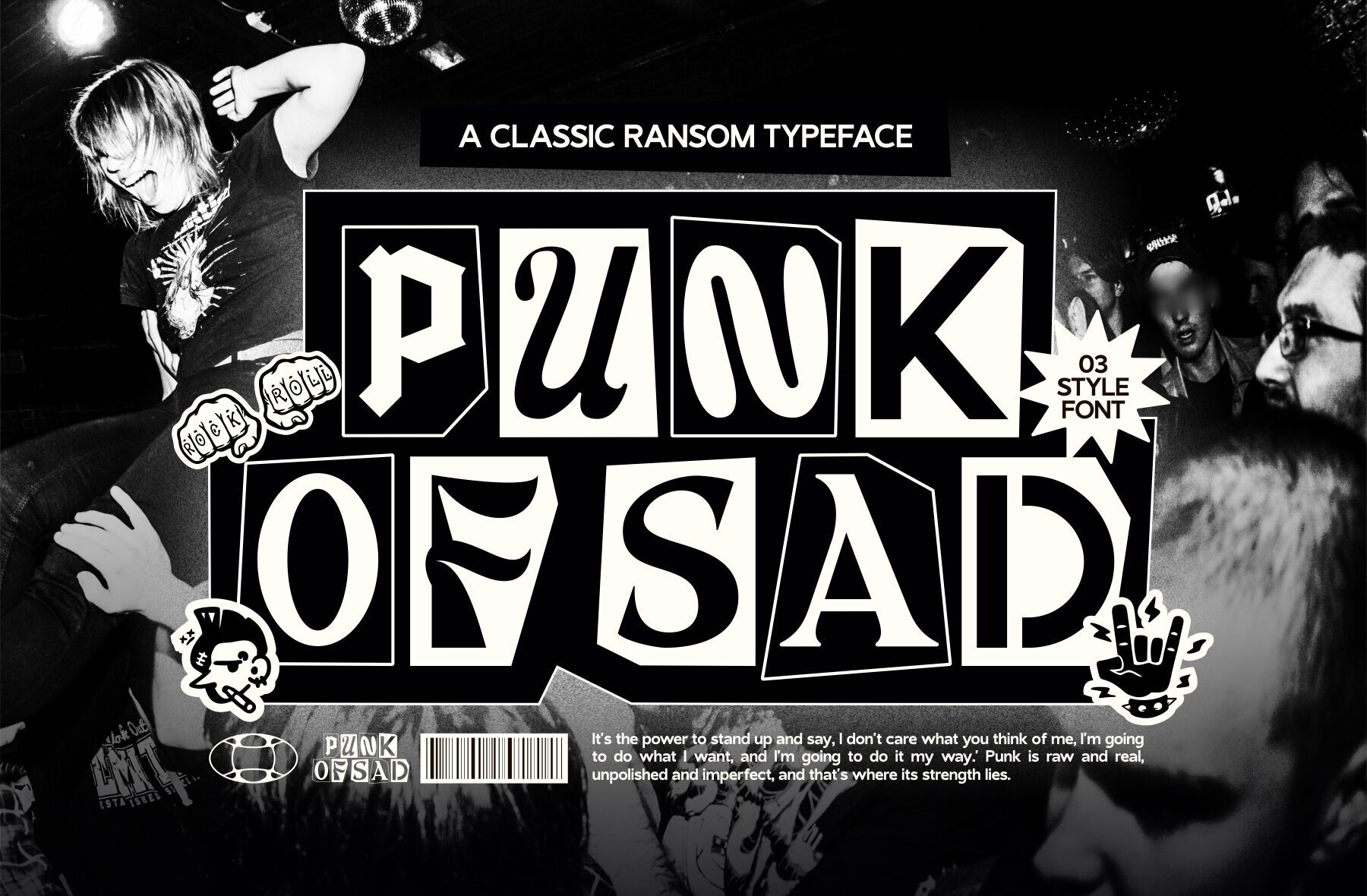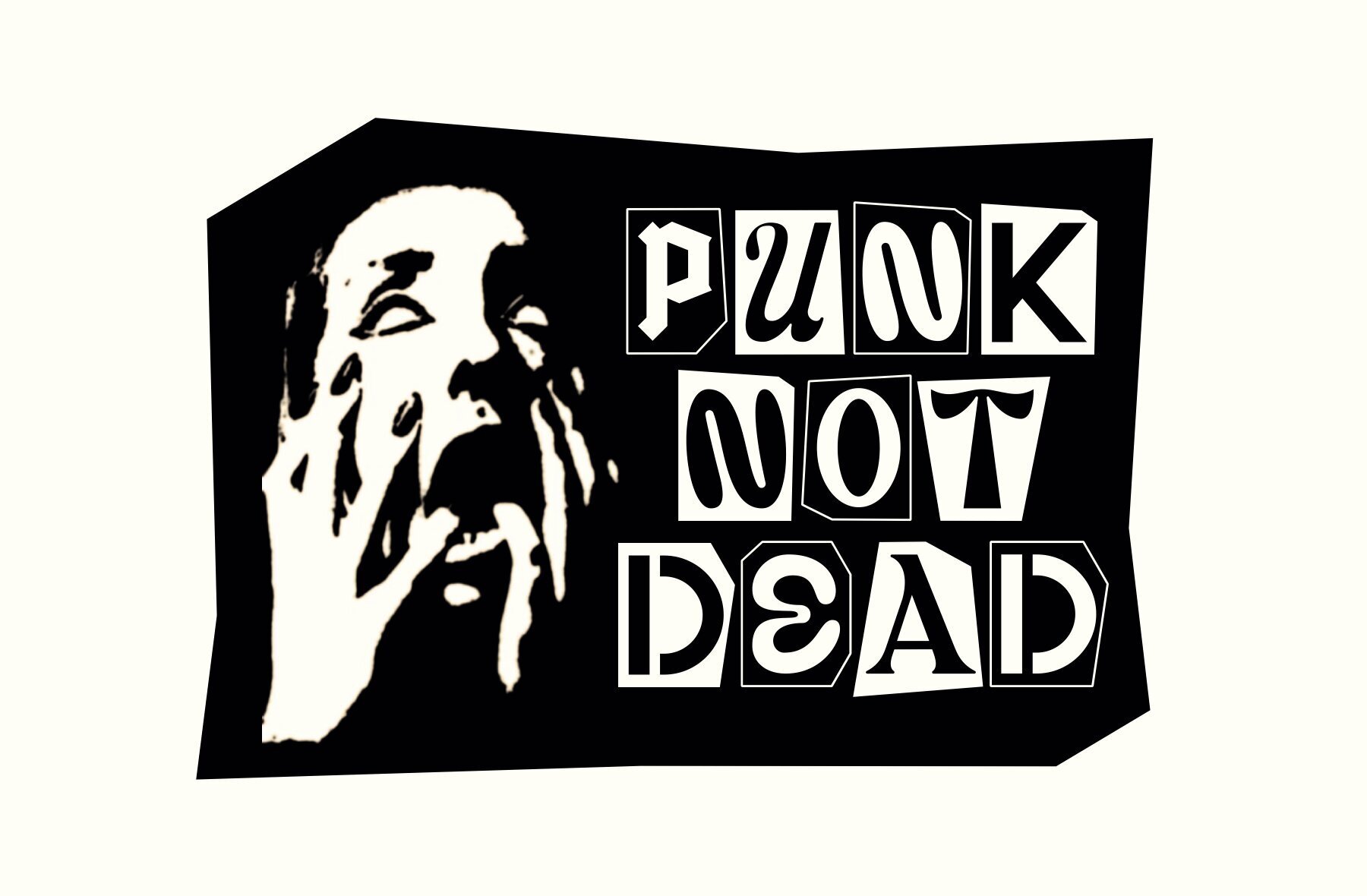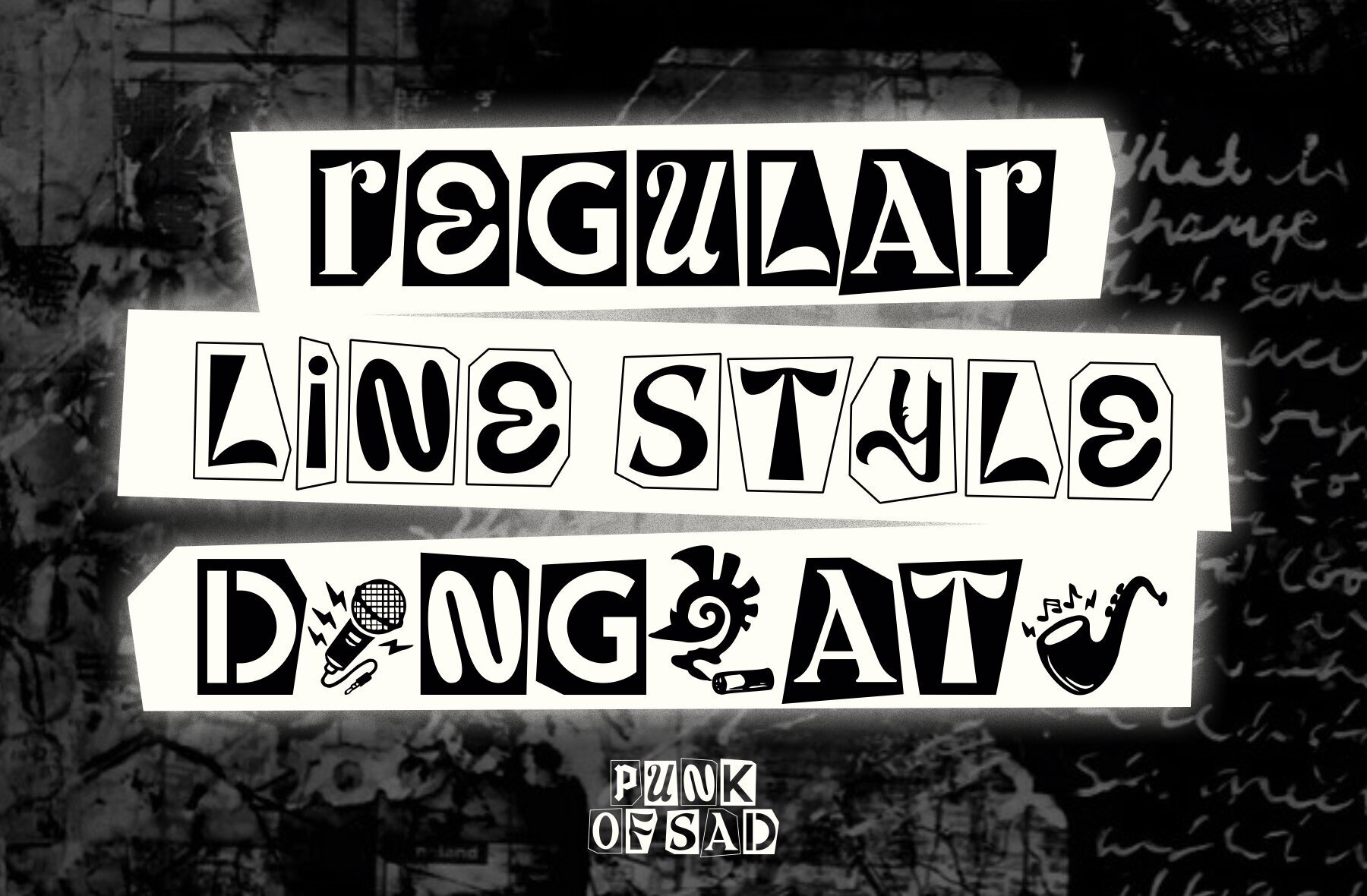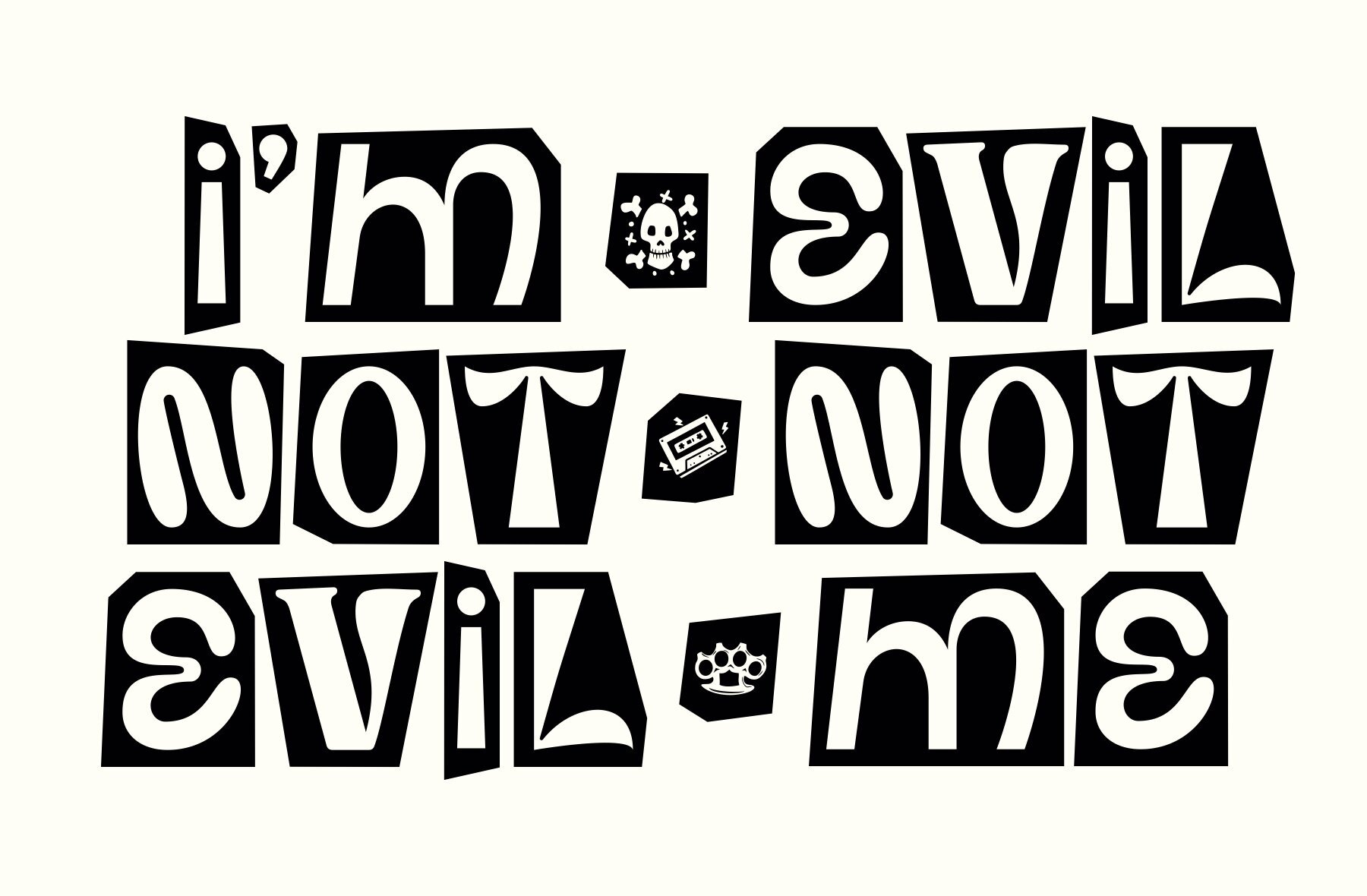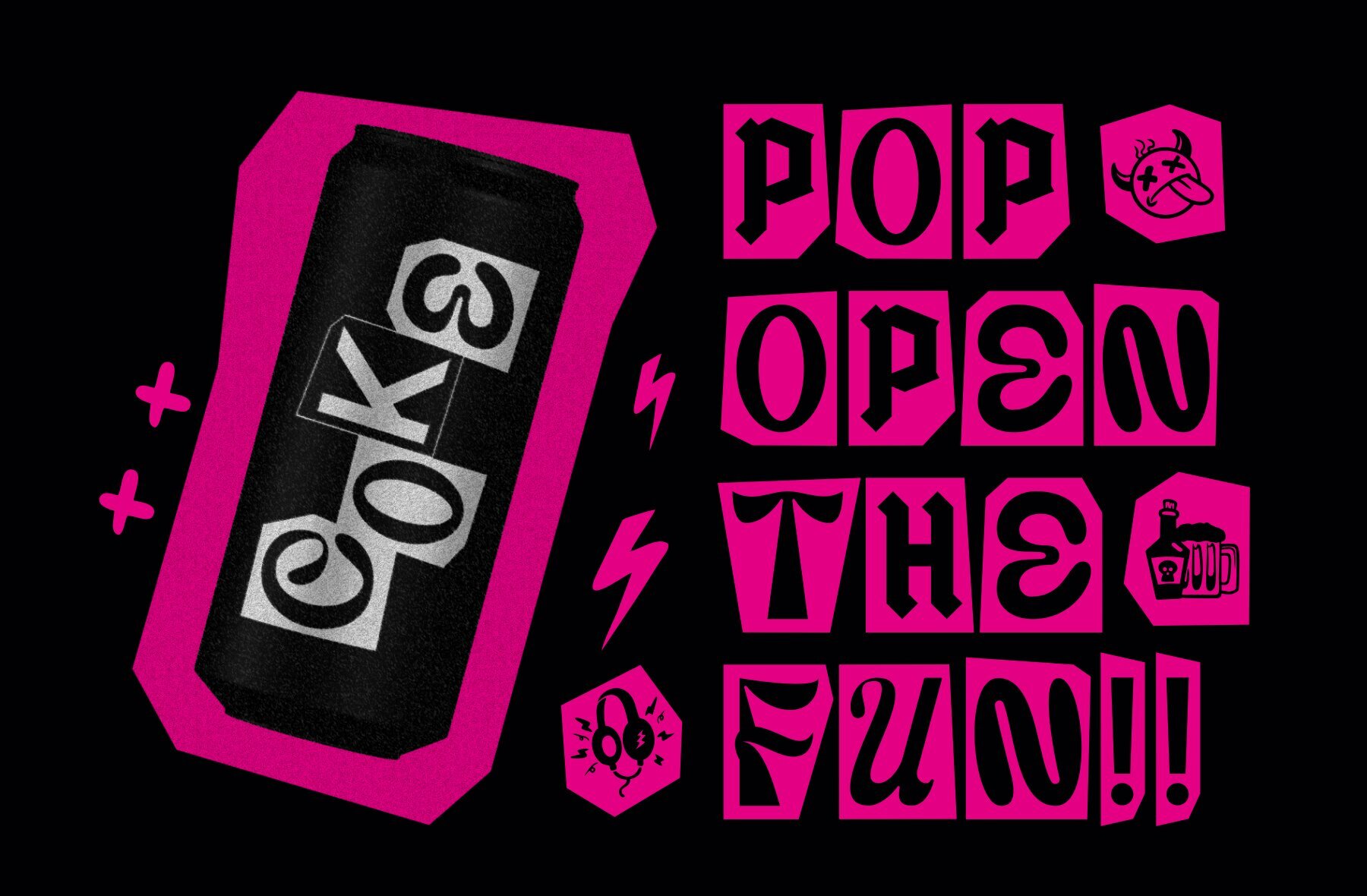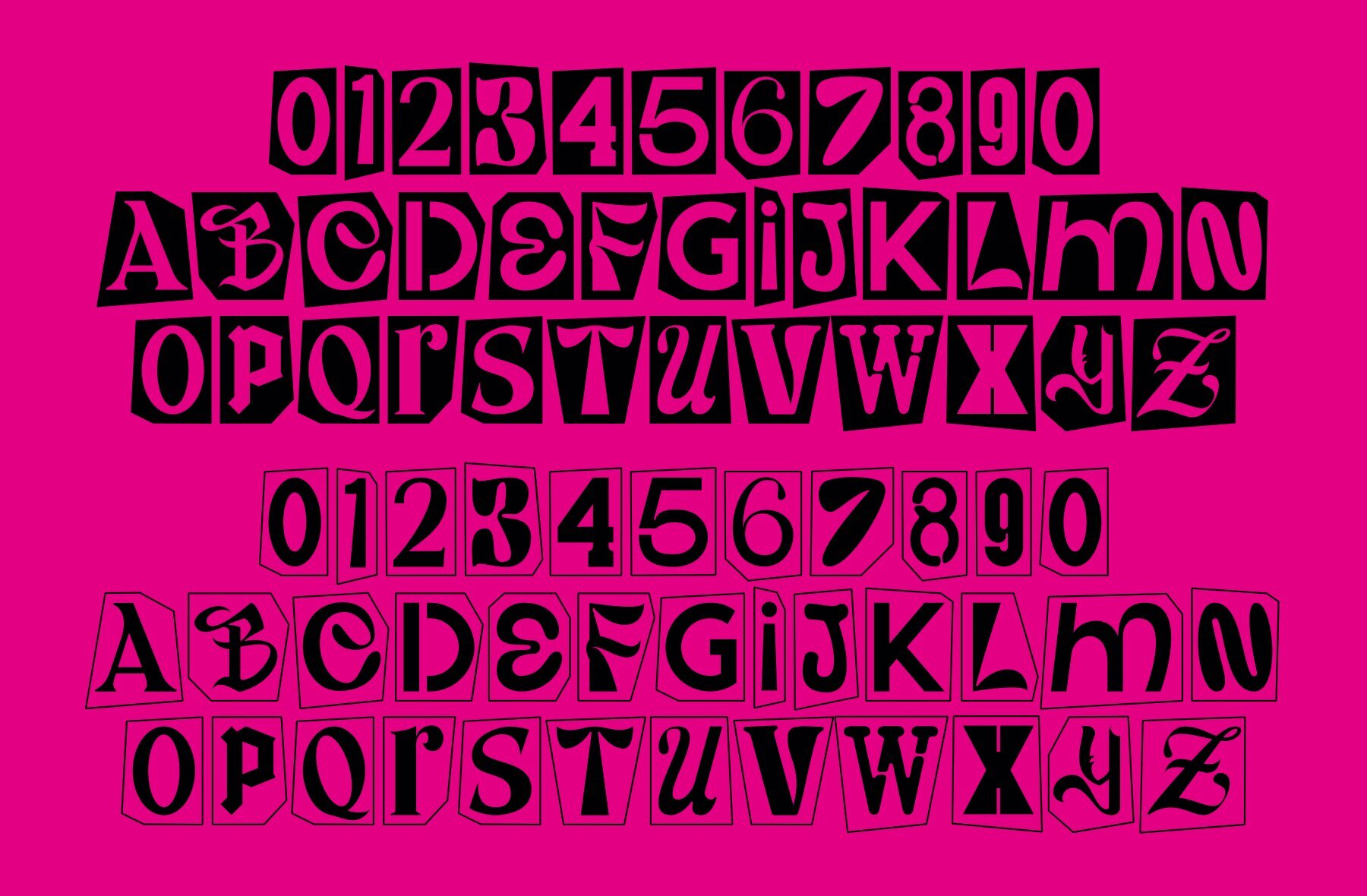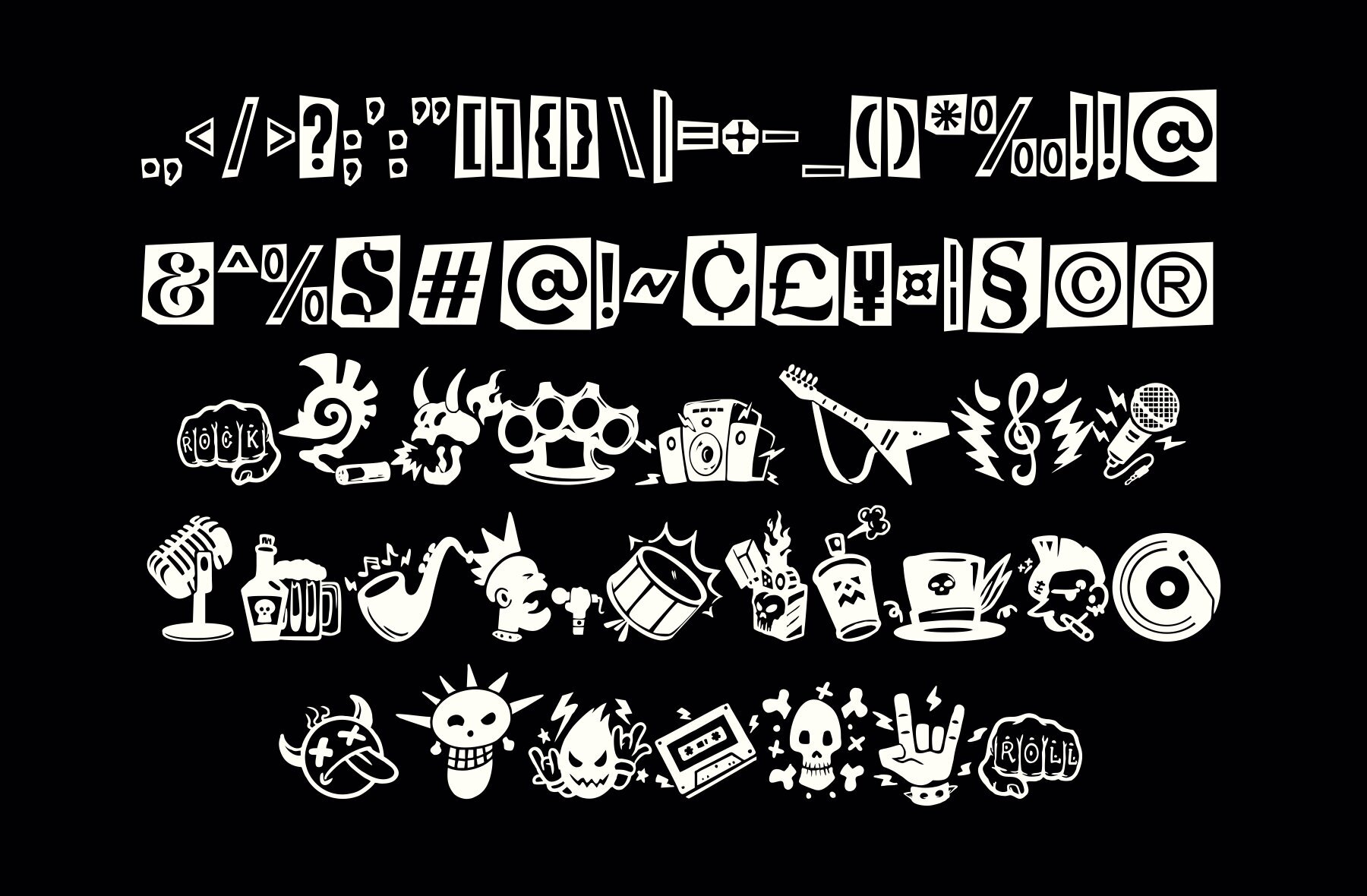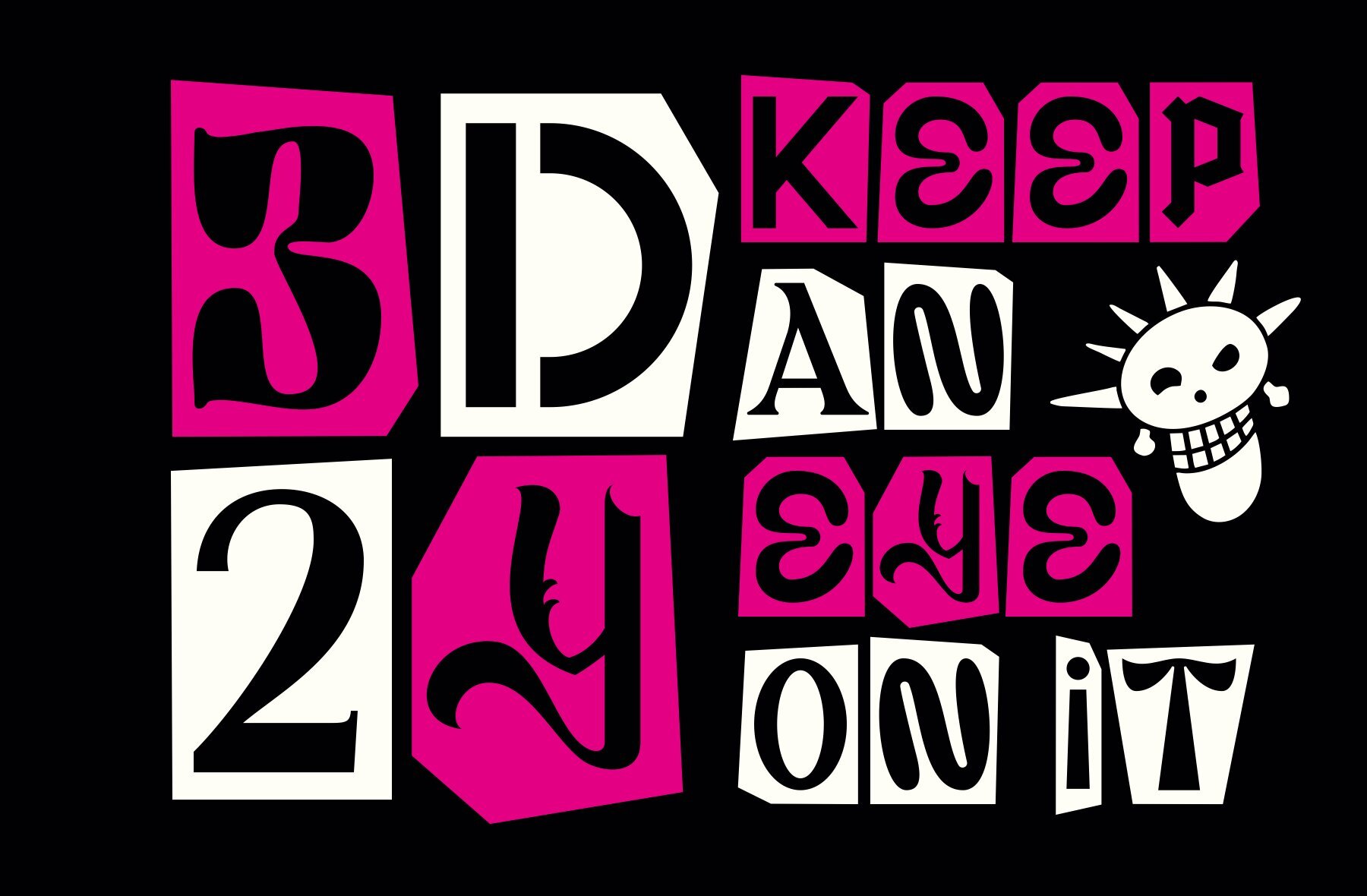
Punk Of Sad Font
Introducing Punk Of Sad is a distinctive typeface embodying the classic ransom style, blending vintage aesthetics with a gritty, rebellious edge. This font is particularly suitable for designs that require a bold, unconventional look and is available in three versatile options With these three options, Punk Of Sad offers designers flexibility, making it well-suited for projects that require a bold, non-traditional aesthetic, such as posters, album covers, and other creative expressions.